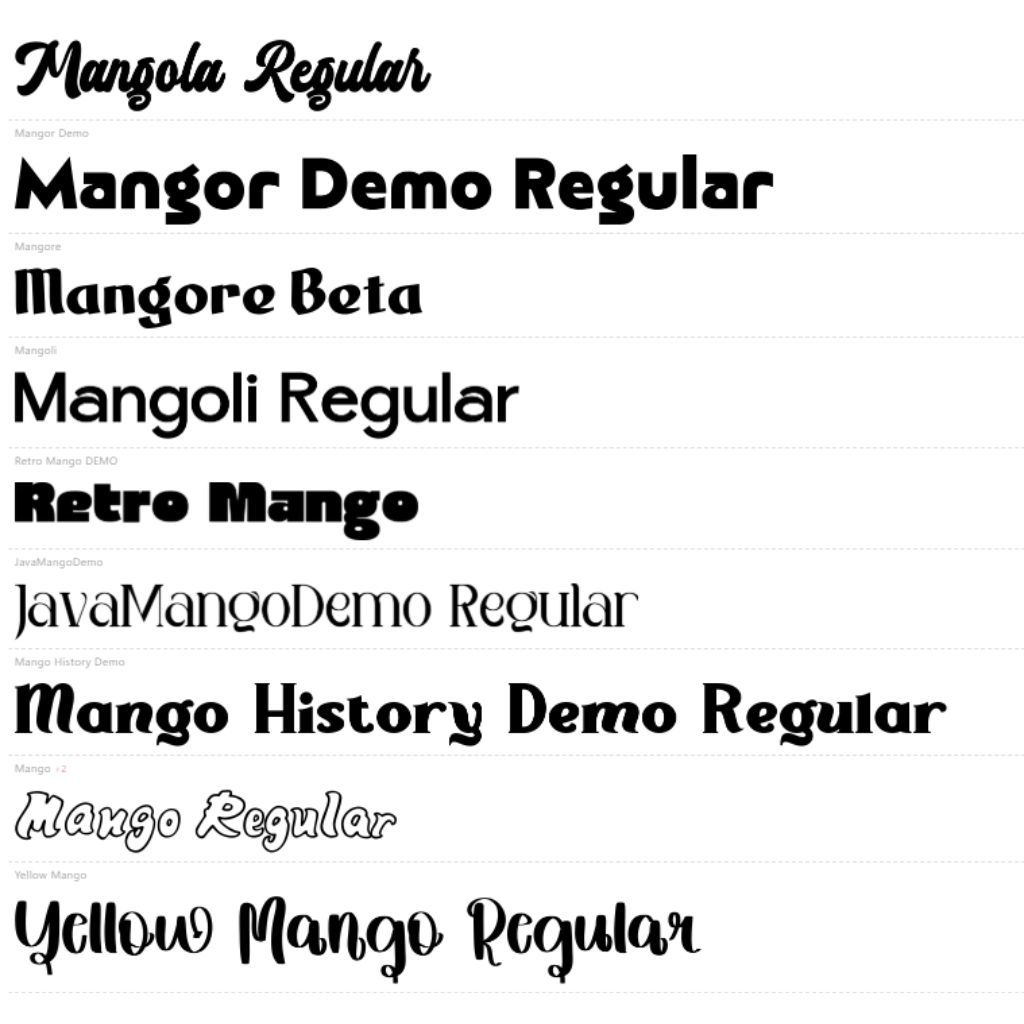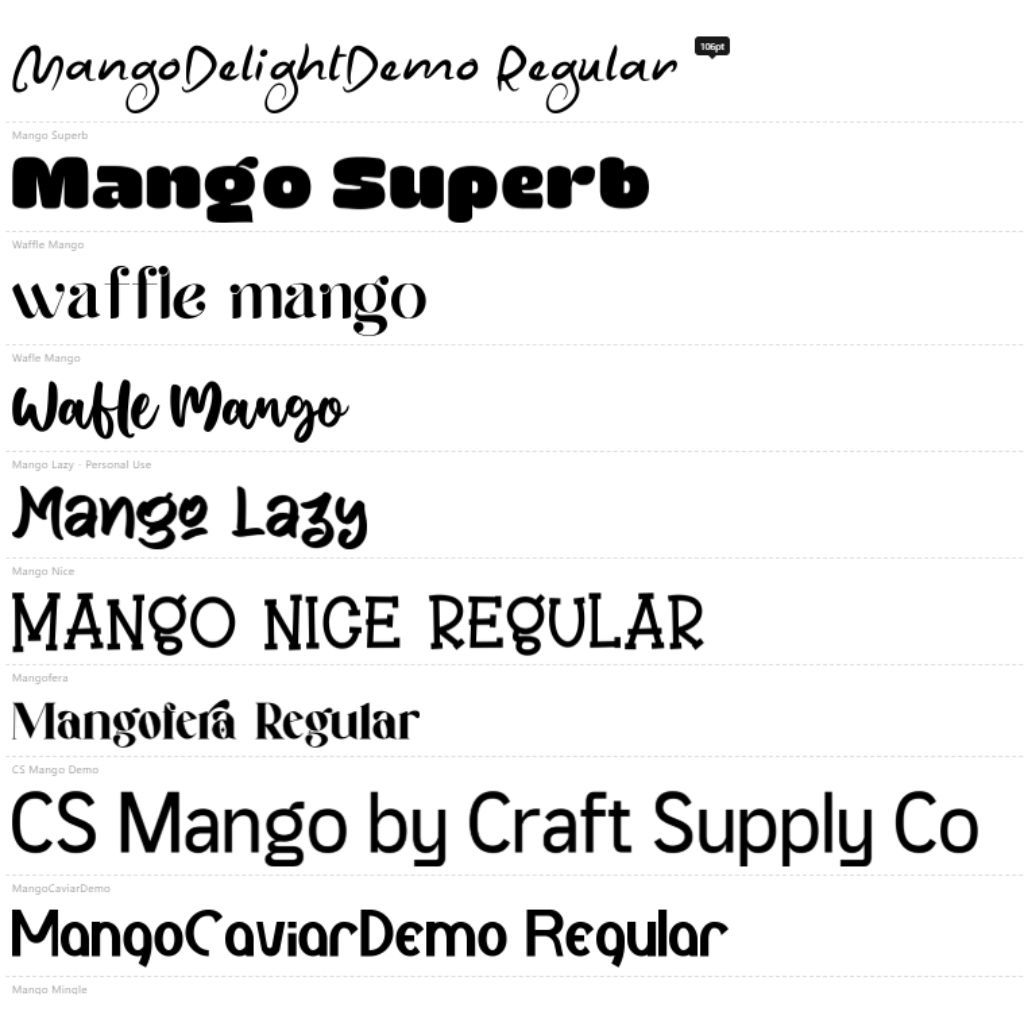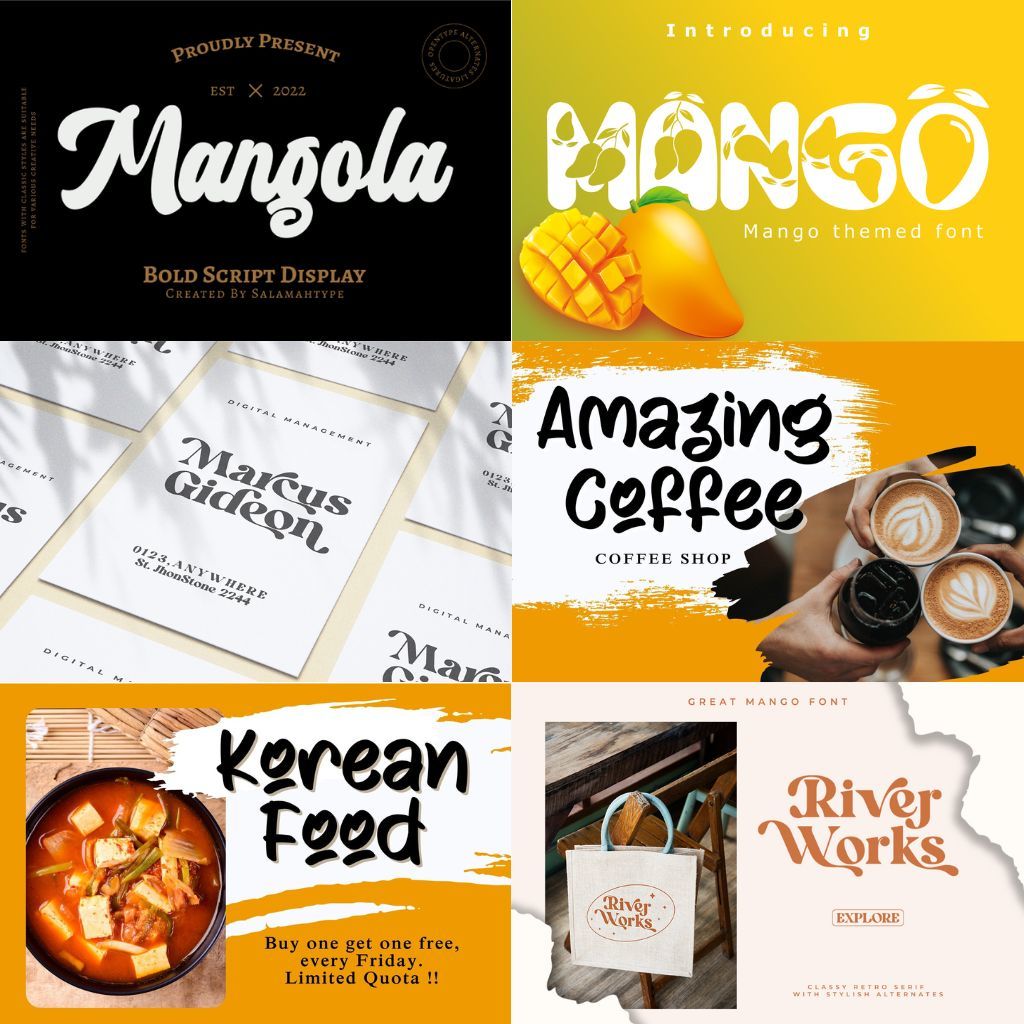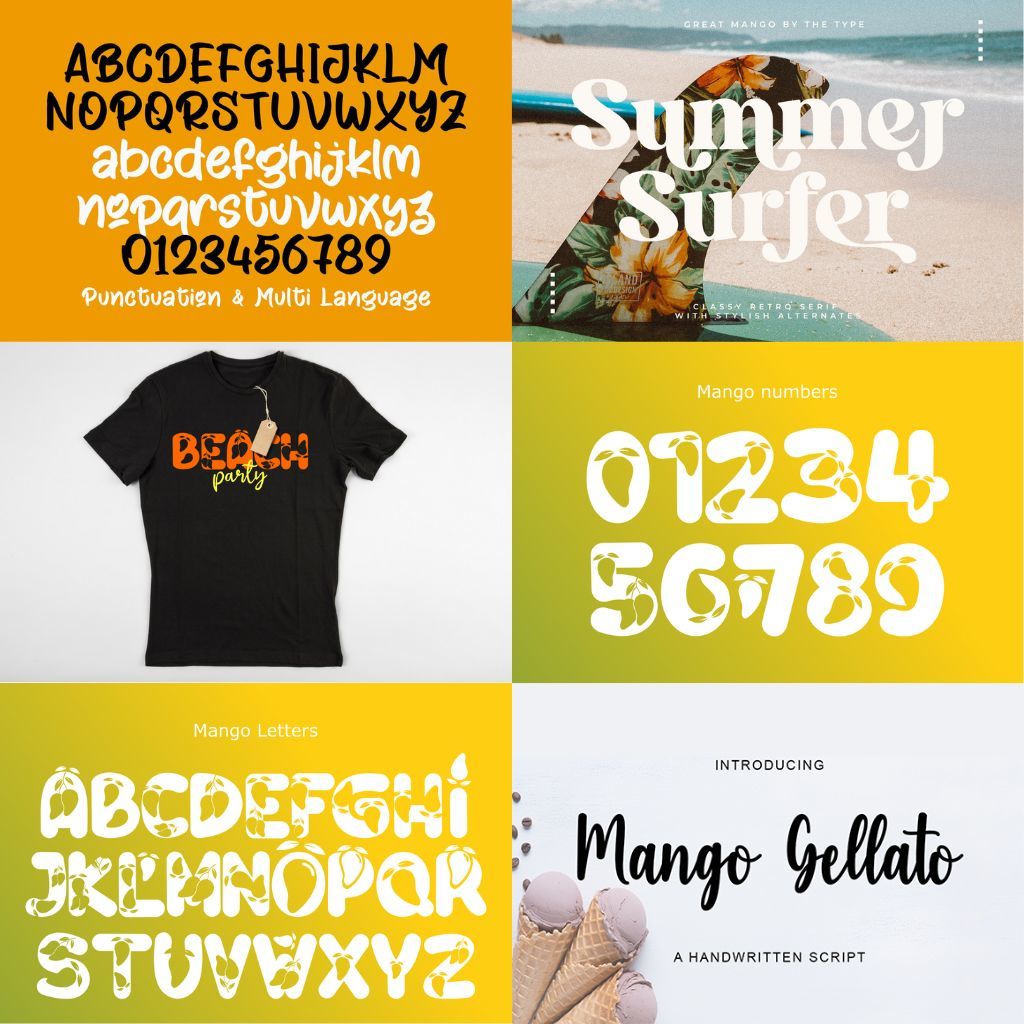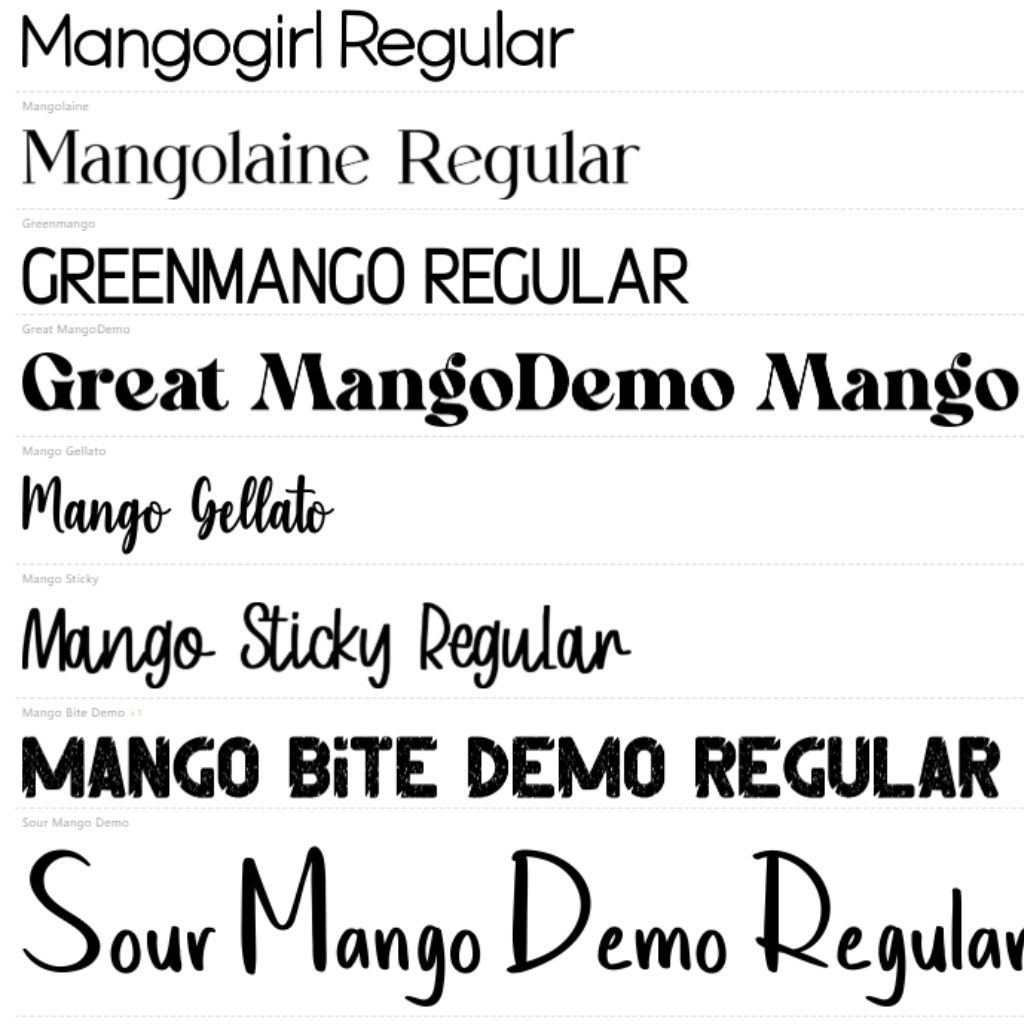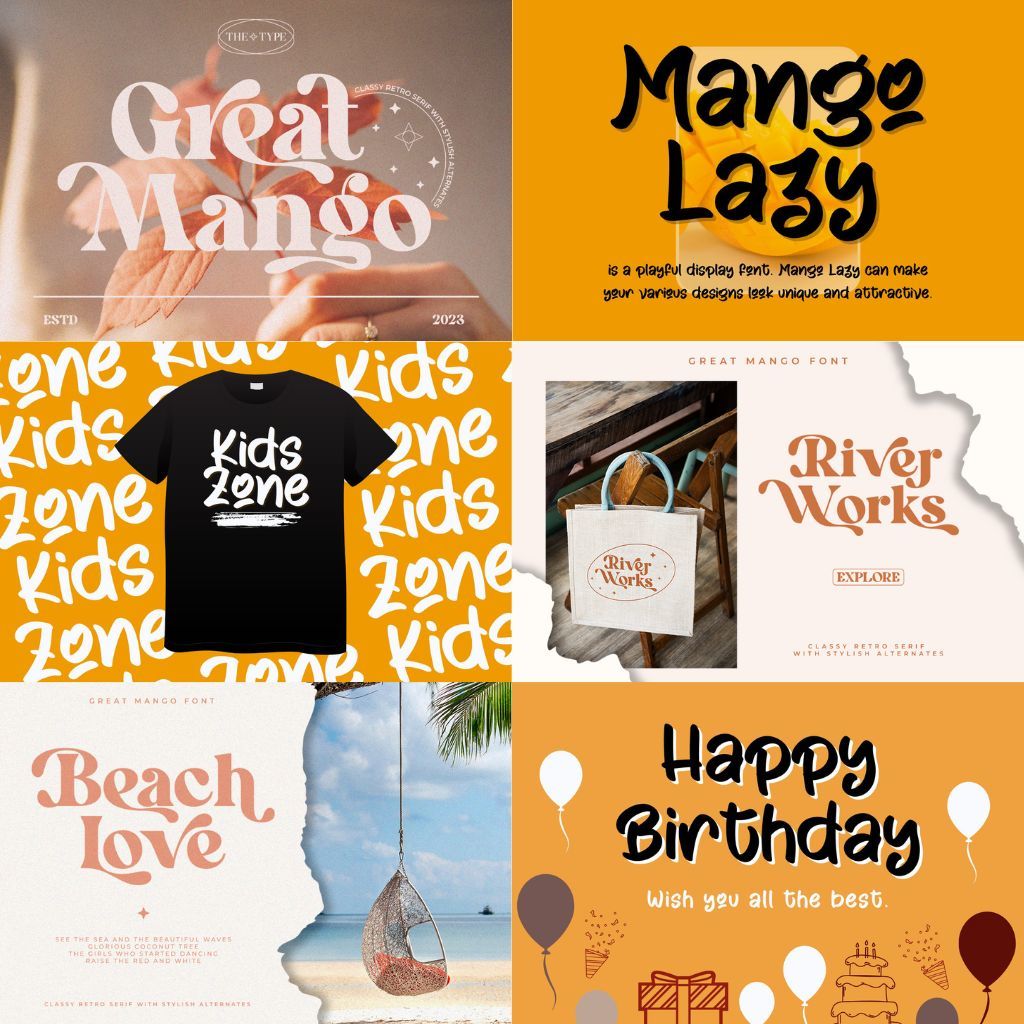
Wild Mango Font 30+ Handwritten Script Modern Calligraphy Instant Download
Wild Mango Font 30+ Handwritten Script, Modern Calligraphy, Instant Download Creative Typeface Use Digital Download
Experience the artistry of typography with the Wild Mango Font, a vibrant and dynamic creation that brings a touch of exotic flair to every design. Imagine the lush curves and bold strokes that echo the rich, earthy tones of a tropical paradise, seamlessly woven into each letter. This font isn’t just a set of characters; it’s a statement that transforms ordinary text into a visual feast. Like the juicy fruit it’s named after, the Wild Mango Font is brimming with energy, ensuring your projects stand out with a zestful personality. Use it to breathe life into invitations, posters, or any creative endeavor that calls for a hint of the extraordinary. With Wild Mango, every word becomes a celebration of creativity and bold expression. Let your designs sing with the vivid vibrancy and unique character of Wild Mango, making every project a masterpiece.